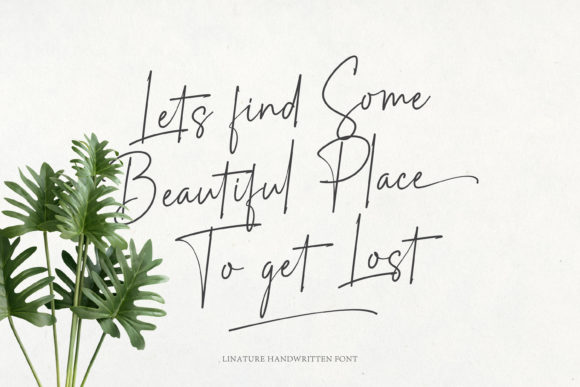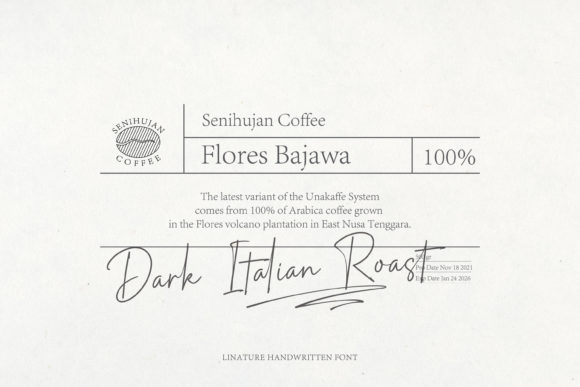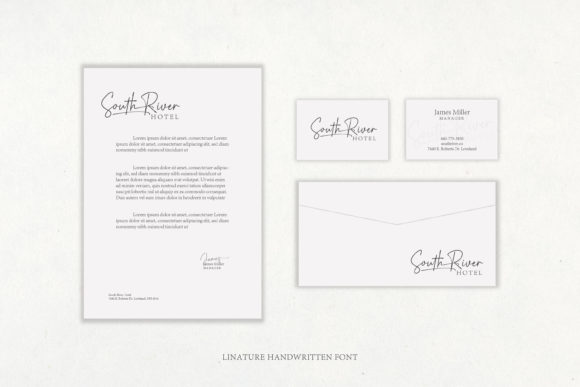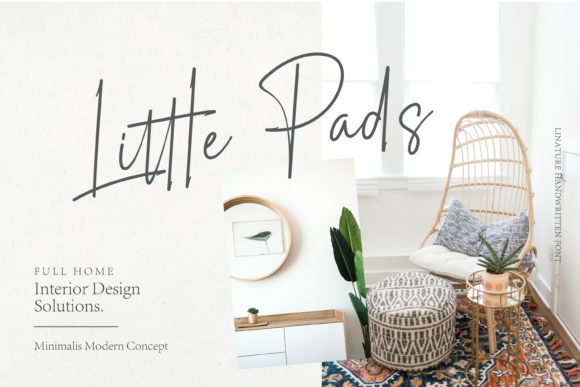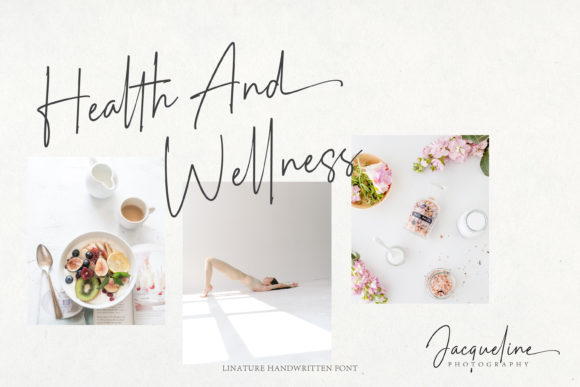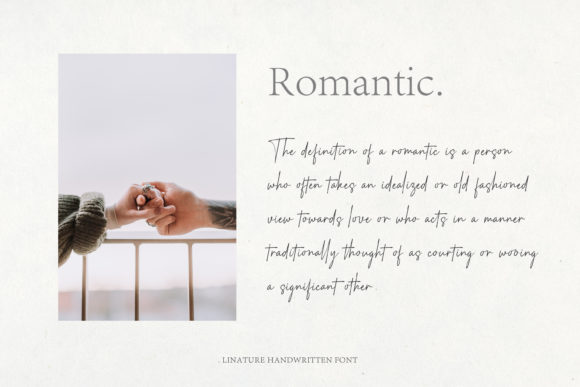
Introduction to Linature Font
As a designer, there’s nothing quite like the thrill of finding that perfect font to elevate your creative project. Whether it’s a high-end brand identity or a personal passion project, the right font can make all the difference. For me, that moment came when I stumbled upon the Linature Font – a lovely and delicate script font that exudes elegance and class.
With its PUA encoded design, accessing all glyphs and swashes is a breeze, making it a valuable resource for any designer. The Linature Font is more than just a pretty face; it’s a high-quality design element that can add a touch of sophistication to any creative project. Whether you’re working on a design project with a transparent background or need a free download to spice up your design, the Linature Font is an excellent choice.
Key Features of Linature Font
- High-quality, elegant design suitable for creative projects and design resources.
- Transparent background, allowing for easy integration with various design elements.
- Designed with a focus on simplicity and sophistication, making it ideal for a range of design applications.
- Supports various languages, including Latin, Cyrillic, and Greek alphabets.
- Perfect for use in digital design, print materials, and other creative projects requiring a high-quality, elegant font.
Honest Review: Linature Font
I recently had the chance to work with the Linature Font, and I must say it’s been a great addition to my design resource library. ✨ One of the standout features is its high quality and elegant design, making it perfect for creative projects that require a touch of sophistication.
Here are some key features that I like about the Linature Font:
- Elegant and sophisticated design
However, there are a few limitations to be aware of: ⚠️ The font only comes in a few styles, which may not be suitable for more complex design projects. Additionally, the font may not be as versatile as some other options on the market.
Overall, I’m quite impressed with the Linature Font. It’s a solid design resource that can add a touch of elegance to any creative project. While it may not be perfect, I think it’s definitely worth checking out for designers looking for a high-quality, free font option.
Tips for Getting the Most Out of Linature Font
Experiment with different font sizes, colors, and styles to achieve a unique look. Use the transparent background feature to create a sense of depth and dimension in your design.
The Linature Font is ideal for designing invitations, business cards, and social media graphics. Its high-quality design makes it perfect for creative projects that require a sophisticated and elegant touch.